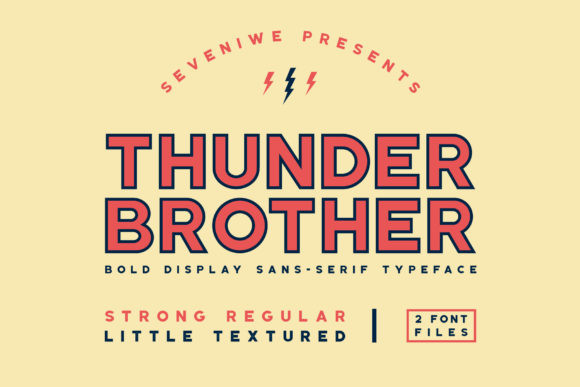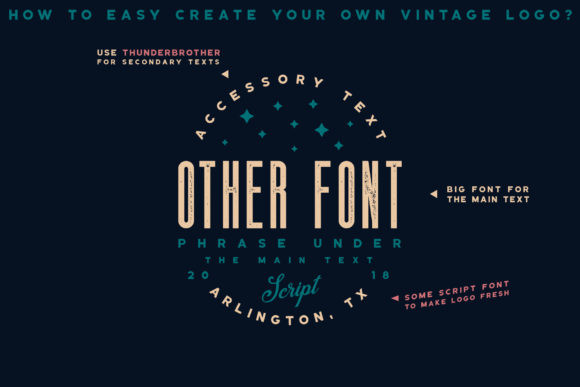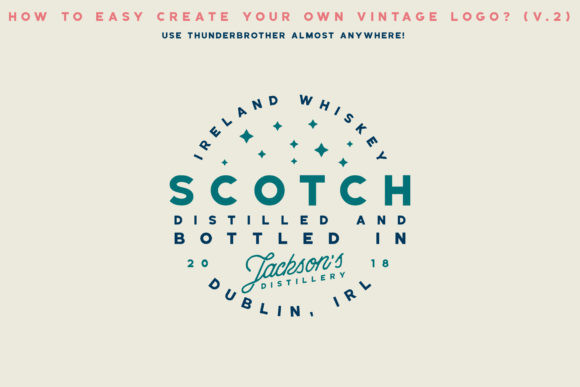
Thunderbrother Font
Thunderbrother feels strong and confident, and will deliver any message with style. It even comes in two distinct versions, Regular and Textured.